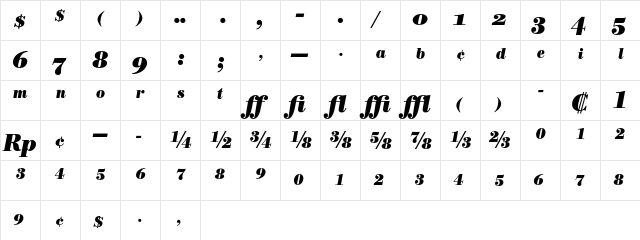
Bodoni BE Bold Italic Expert Font Preview
Design Context for Bodoni BE Typeface
Bodoni BE offers clean, dependable letterforms without strong stylistic allegiance, making it a practical choice for designers who need flexibility. The dynamic lean of this cut emphasises speed and emphasis in any layout. The heavy weight commands attention and anchors typographic hierarchies.
Pro Tip: Try Bodoni BE for annotation and caption copy alongside an upright companion — the contrast in angle creates a dynamic but ordered typographic system.